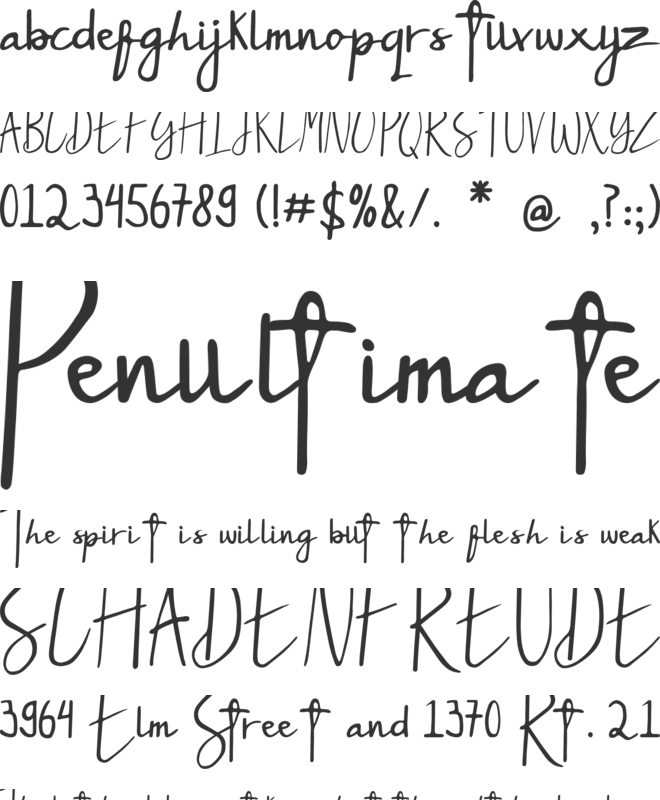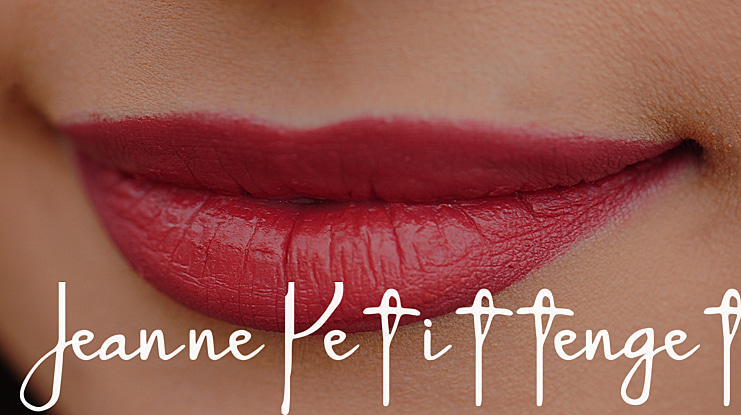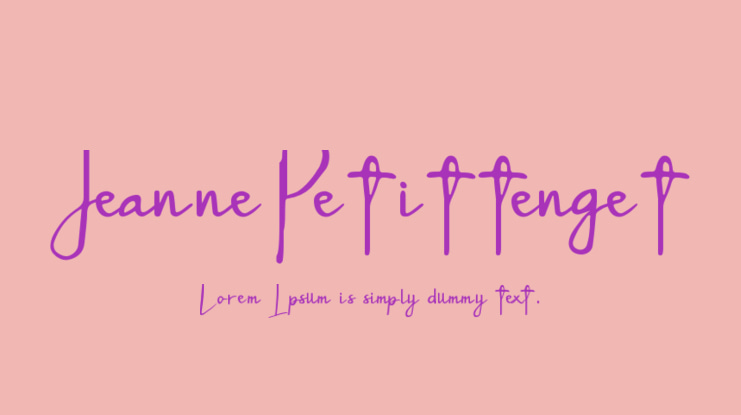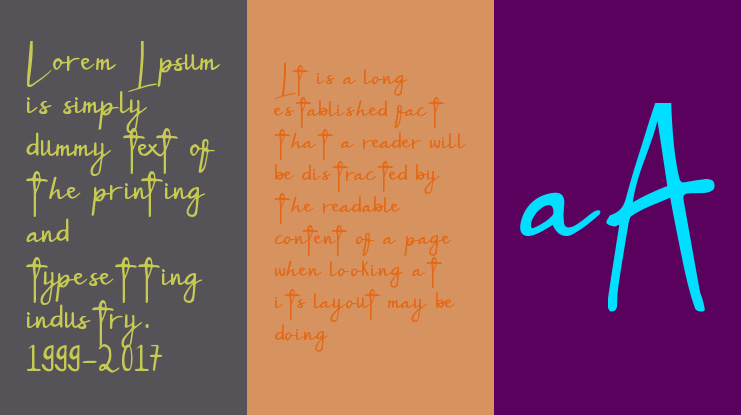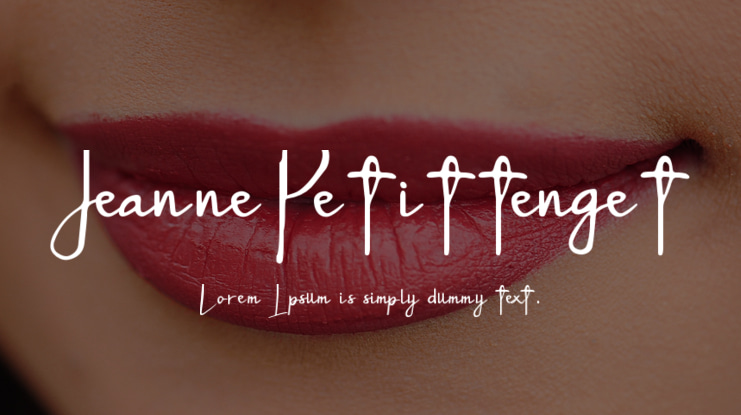
JeannePetittenget Font
Jeanne Petitténget is a Modern Signature Font make this Font looks Beautiful, Minimalist, and Natural. This Font looks fabulous and suites for many Project that need sophisticated classy & Handwritting Taste, such as logos & branding, invitation, stationery, wedding designs, etc.
JeannePetittenget font preview